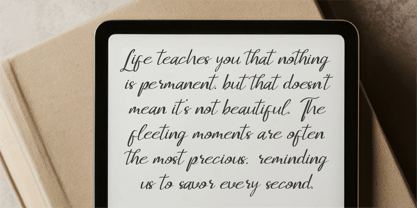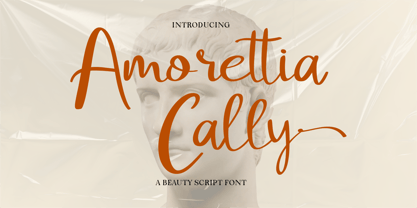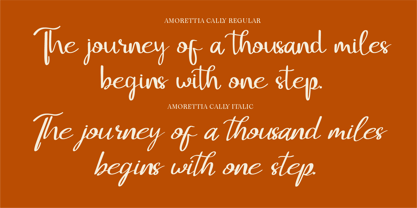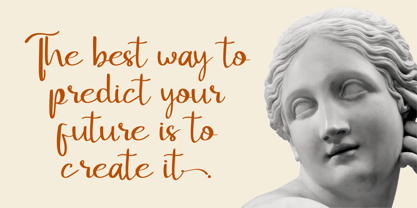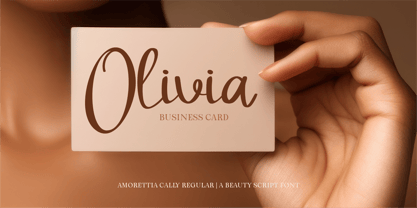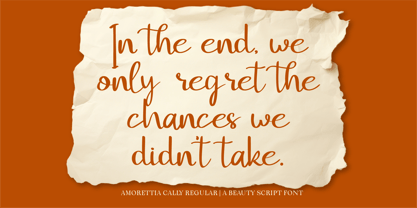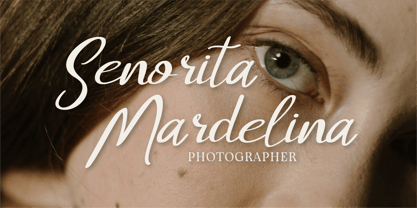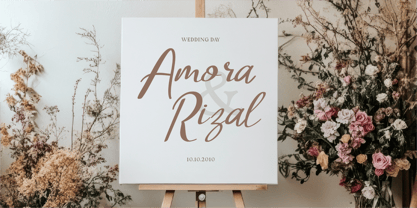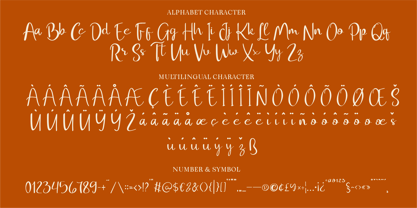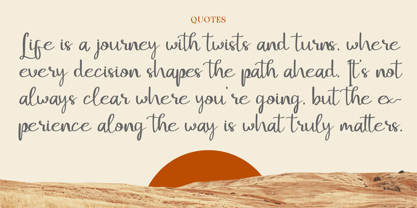
CF Amorettia Cally
by Indotype
The CF Amorettia Cally Font Family was designed by Gilang Mei Nugraha, Frederik Aristaputra and published by Indotype. CF Amorettia Cally contains 2 styles and family package options.
Amorettia Cally is a stunning beauty script font that blends delicate curves with a touch of bold elegance. Its handcrafted details and flowing lines bring a luxurious charm to any design, making it perfect for wedding invitations, upscale branding, social media graphics, or artistic quotes. The versatility of Amorettia Cally ensures your projects exude sophistication while maintaining a personal, heartfelt touch.
- Standard Character A-Z, a-z, 0-9, Punctuation & symbols
- Regular and Italic
Designers: Gilang Mei Nugraha, Frederik Aristaputra
Publisher: Indotype
Foundry: Indotype